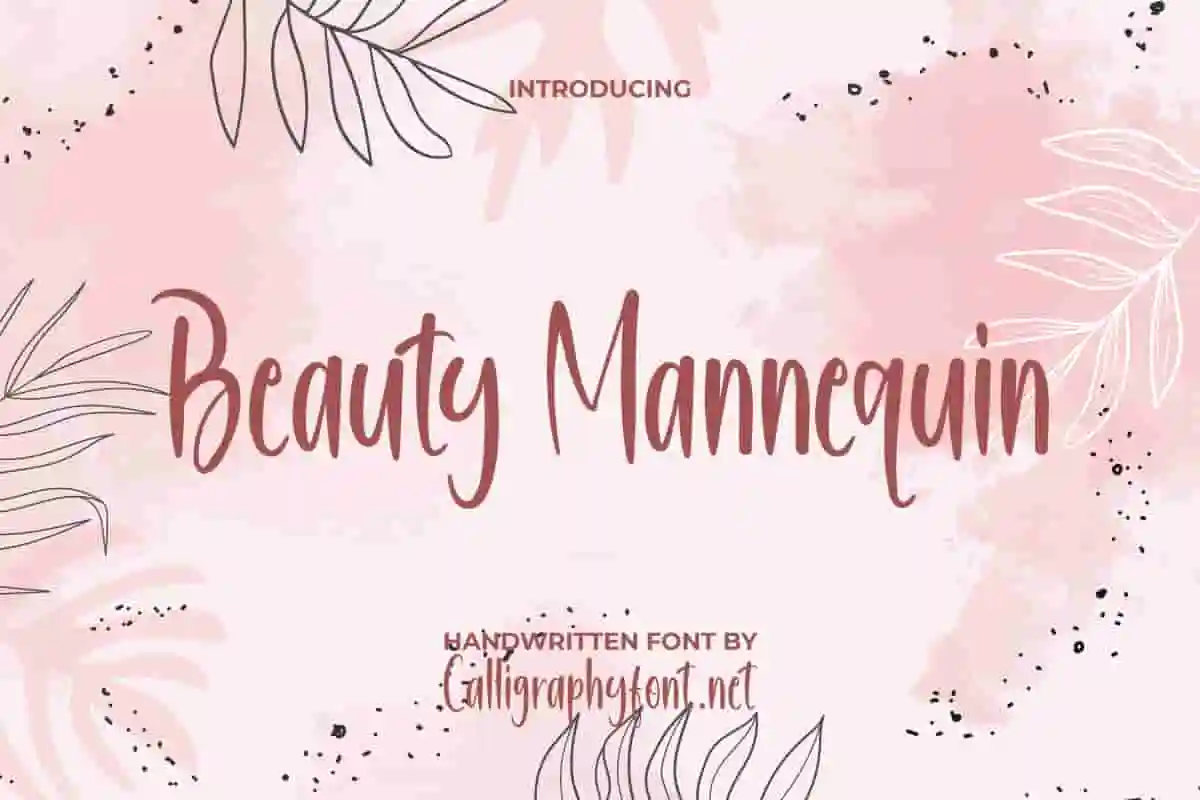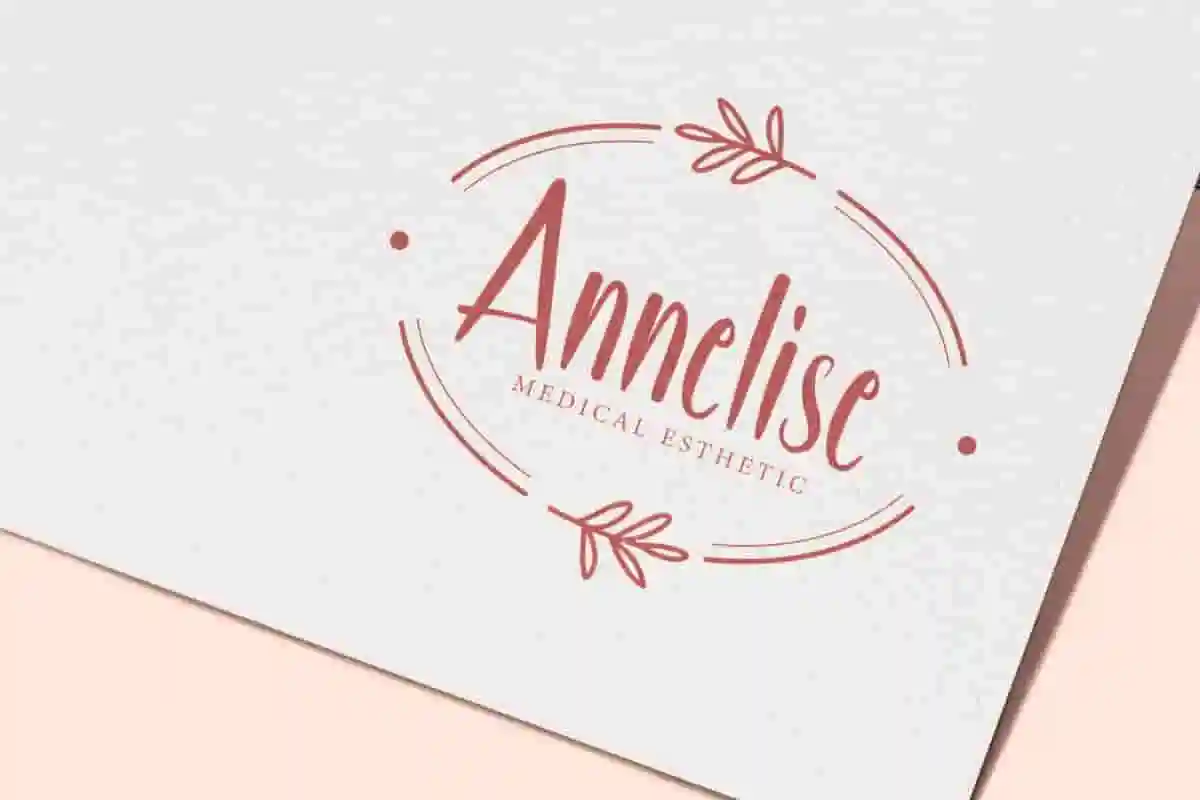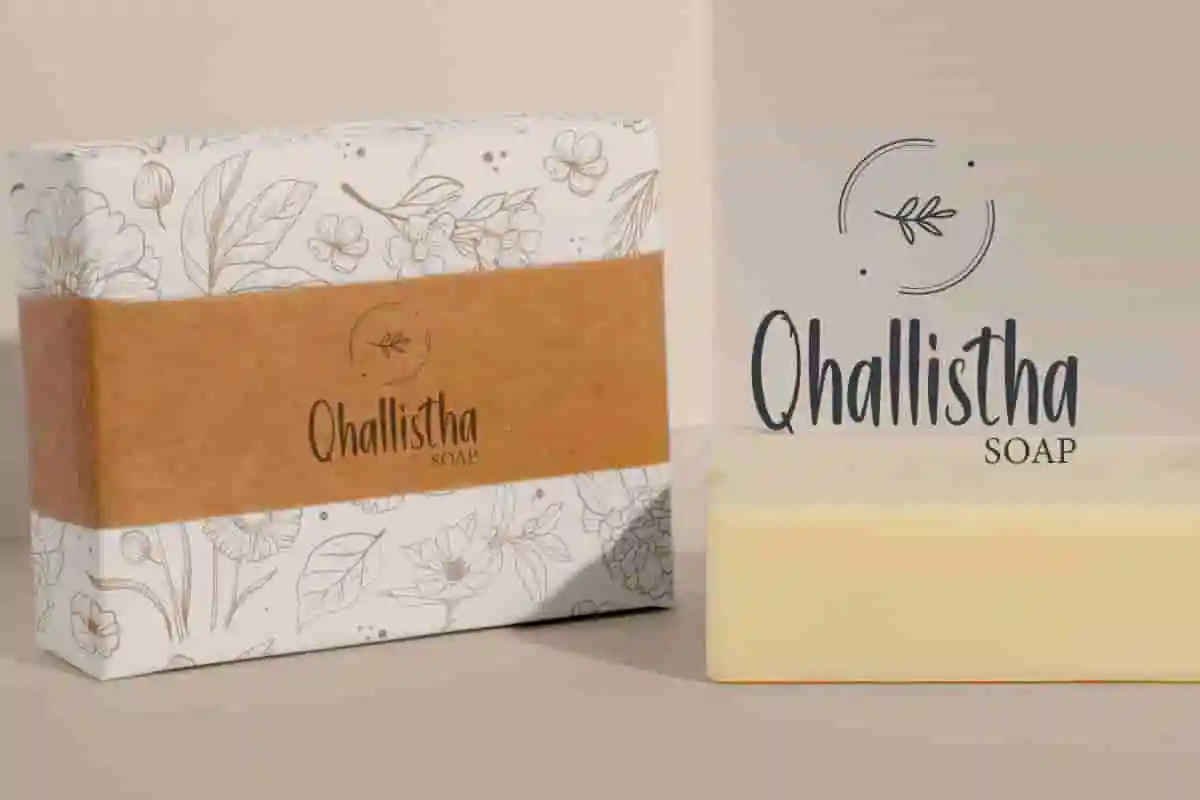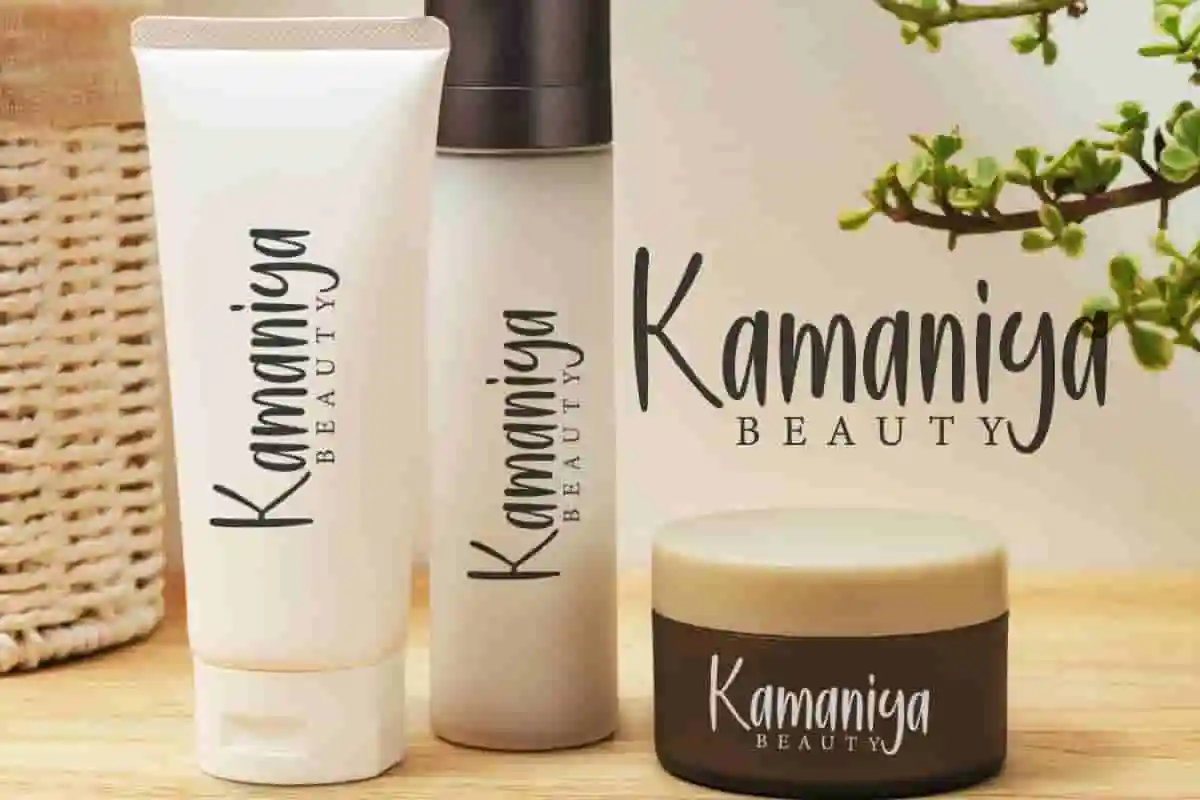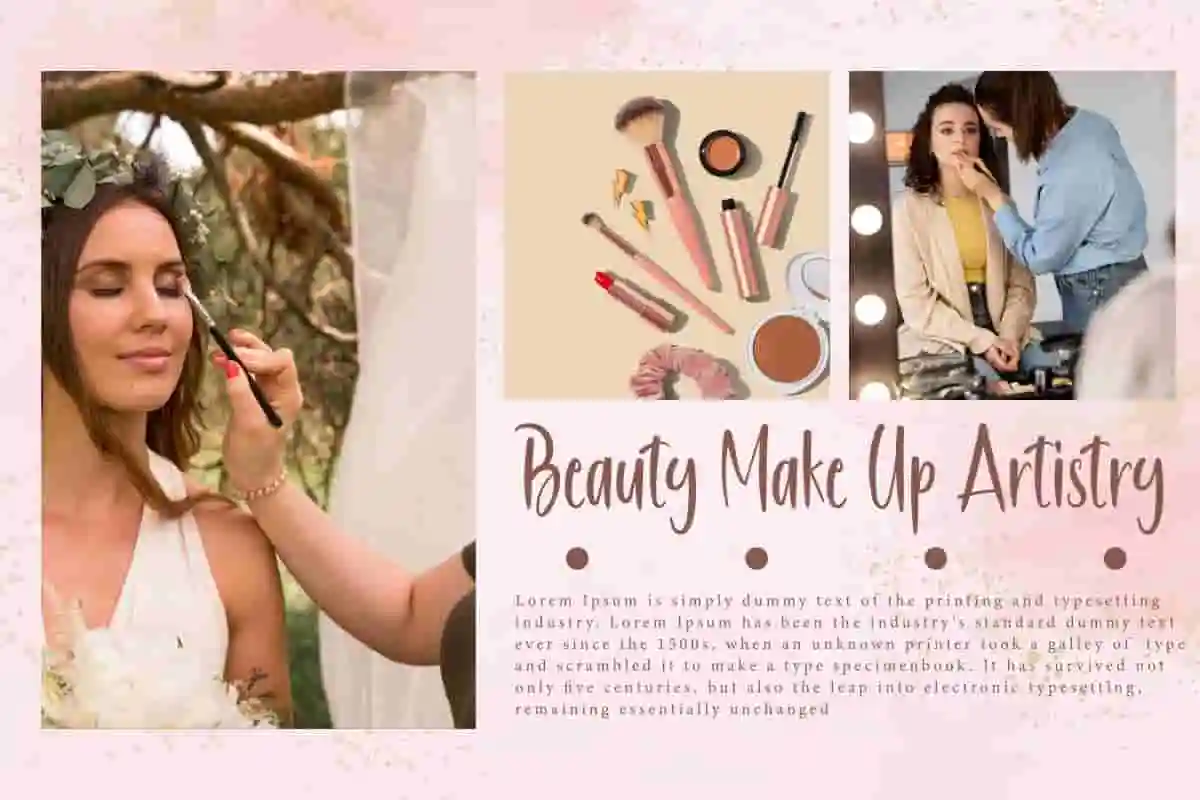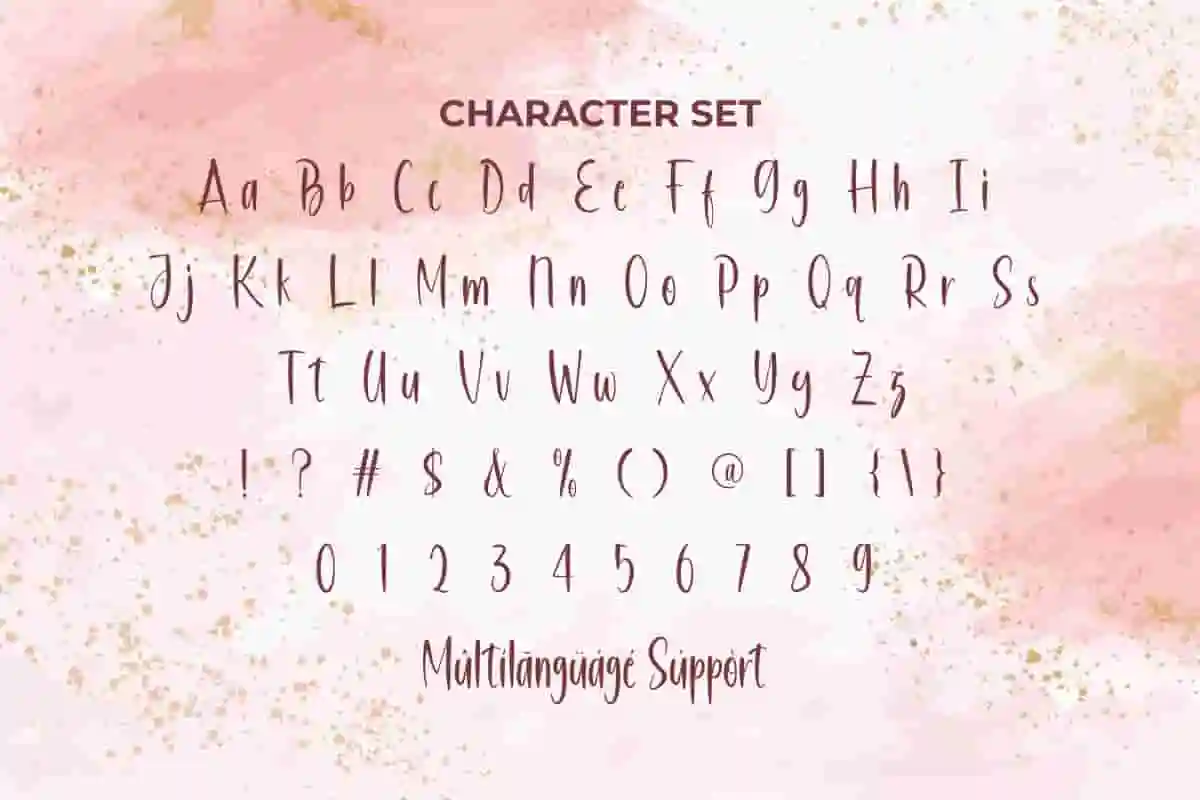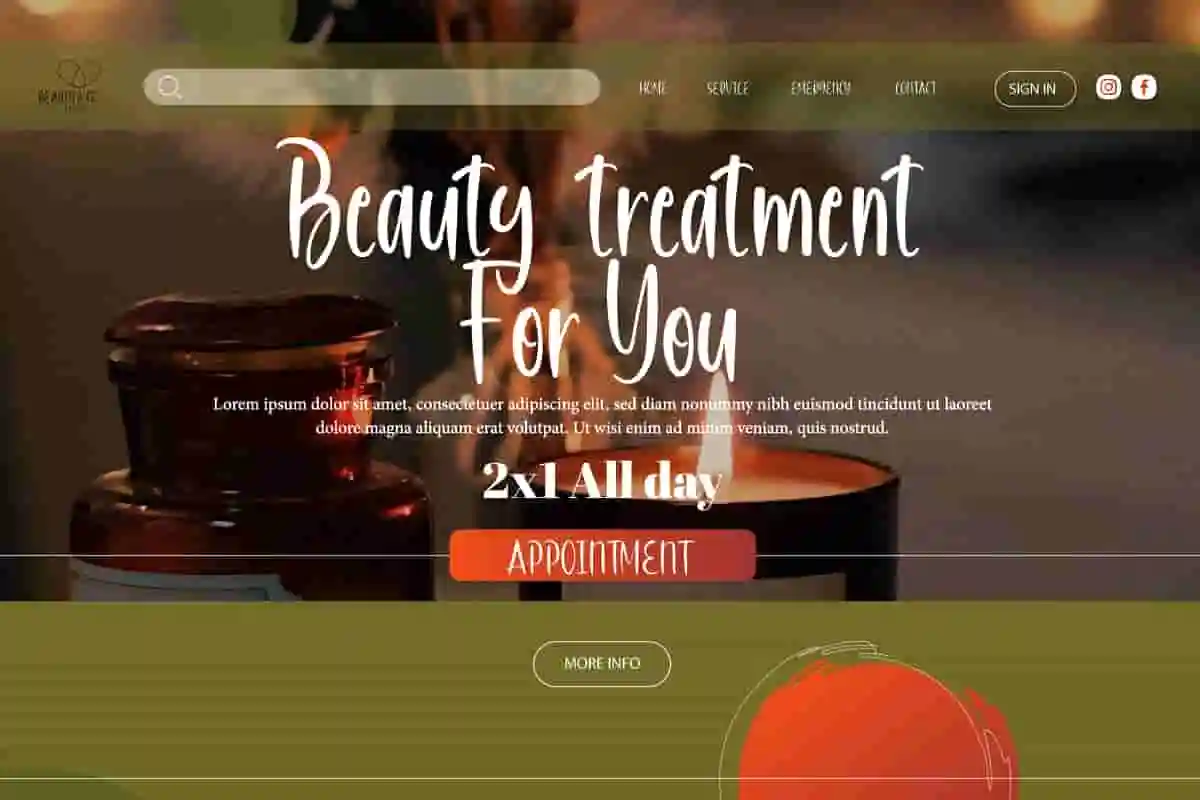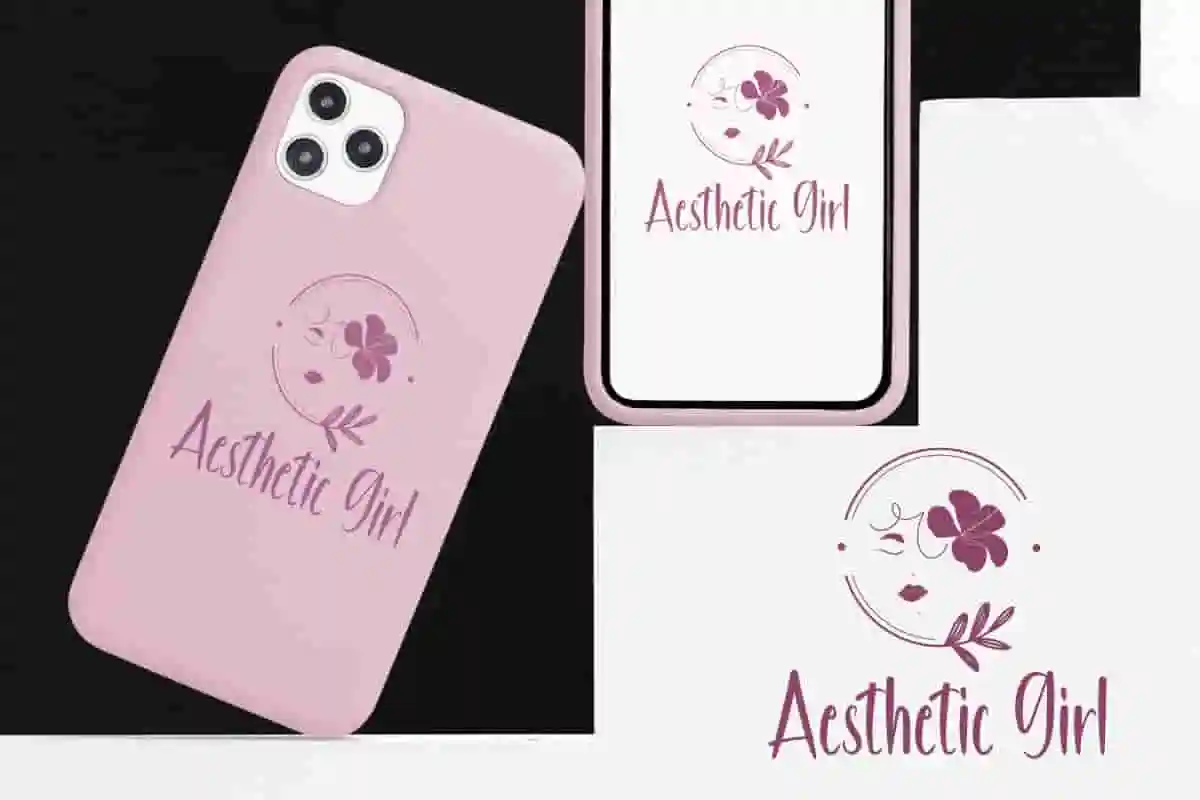
Beauty Mannequin Handwriting Font
Beauty Mannequin Font is a beautiful handwriting script font that bring casual thin brush lines with easy to read. It will provide you a variety of charming touches for any work design you create!
Beauty Mannequin Font is a handwriting script font that bring casual thin brush lines with easy to read. It will be good to perfect any project design, such as brand image, brochure, cover, custom design, flyer, invitation, label, menu, packaging design, poster, screen print, signage, stationery, sticker, thank you card, title, website, and many more!
Transform your creative projects with Beauty Mannequin Handwriting Font, a stunning handwritten typeface that combines elegance with a personal touch. Perfect for beauty and fashion branding, wedding invitations, lifestyle blogs, and social media content, this font adds a feminine flair and sophistication that captures attention.
Enhance your designs with the graceful charm of Beauty Mannequin Handwriting Font, a delicate and stylish handwritten font that brings elegance and femininity to any project. Perfect for beauty brands, fashion blogs, wedding invitations, and lifestyle content, this font adds a personal touch with a sophisticated flair. Crafted with smooth, flowing strokes and refined details, Beauty Mannequin captures the essence of handwritten beauty.
Add sophistication and charm to your projects with Beauty Mannequin Handwriting Font, a beautifully crafted handwritten typeface designed to bring elegance and personality to every word. Ideal for beauty brands, fashion blogs, wedding invitations, and lifestyle designs, this font creates a soft and stylish look that connects with your audience. With smooth, flowing lines and delicate details, Beauty Mannequin mimics natural handwriting, adding a personal and graceful touch to logos, packaging, social media posts, and more.
- Delicate & Elegant Handwriting Style
- Ideal for Beauty
Beauty Mannequin Font has slim character letters and is not too wide, giving it a modern appearance and will be good to used by many industries, such as advertising, beauty product, content creator, fashion, food and beverages, graphic design, handicraft, homeware, interior design, printing, publishing, wedding organizer, etc.
Beauty Mannequin Font comes with a full set of Uppercase and Lowercase Basic Characters, Number, a large range of Punctuation, and Symbol. It also comes with multilingual character support. Ready to use both on Windows machine or Mac with simple installations. It’s tested to work well in the Adobe Apps (Illustrator, Adobe InDesign, Adobe Photoshop) CorelDraw, and others. PUA Encode Characters means you can access all the characters easily – Fully accessible without additional design software.